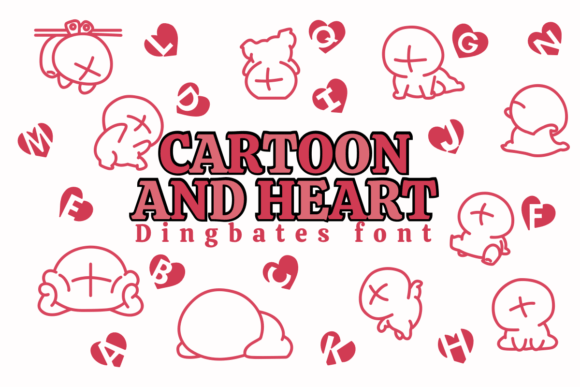
The Ultimate Guide to Cartoon and Heart Font: Unlocking Creative Possibilities
I’ll never forget the time I was working on a wedding invitation project, and my client asked me to add a playful touch to the design. I scoured the internet for the perfect font, but nothing seemed quite right. That was until I stumbled upon Cartoon and Heart, a delightful dingbats font with a sketch style that instantly captured the whimsy and romance of the occasion. In this article, I’ll share my experience with Cartoon and Heart, and explore its features, uses, and alternatives.
An Honest Review of Cartoon and Heart
So, what makes Cartoon and Heart so special? Here are some things I love about this font:
- ✨ Unique and playful sketch style that’s perfect for creative projects
- ✅ Highly versatile and adaptable to various design contexts
- 💕 Extensive collection of glyphs and symbols, including hearts, stars, and more
- 🎉 Supports OpenType features, allowing for advanced typographic control
Of course, no font is perfect, and Cartoon and Heart has a few quirks:
- 🤔 Some characters may appear a bit inconsistent in terms of line width and style
- ⚠️ Limited availability of stylistic alternates, which may limit design flexibility
The Backstory of Cartoon and Heart
The story behind Cartoon and Heart is one of creative passion and experimentation. The font’s designer, inspired by the world of cartoons and illustration, set out to create a unique and playful typeface that would bring joy and whimsy to design projects. Through countless hours of sketching, refining, and testing, Cartoon and Heart was born – a font that embodies the spirit of creativity and imagination.
| Font Name | Cartoon and Heart Font |
| Author | Chonada |
| What type of projects is Cartoon and Heart best suited for? | Cartoon and Heart is perfect for creative projects, such as wedding invitations, DIY crafts, decorations, logos, and more. |
| Does Cartoon and Heart support OpenType features? | Yes, Cartoon and Heart supports OpenType features, allowing for advanced typographic control and glyph access. |